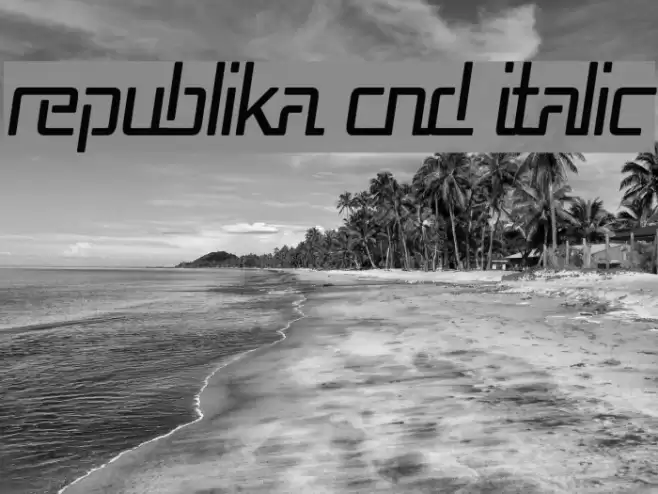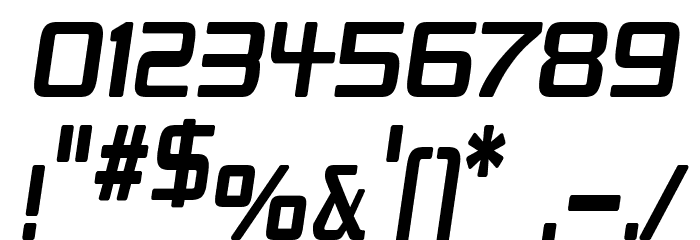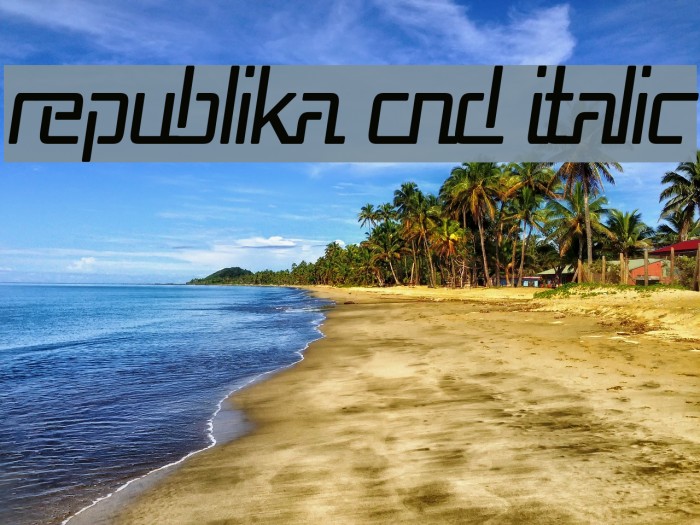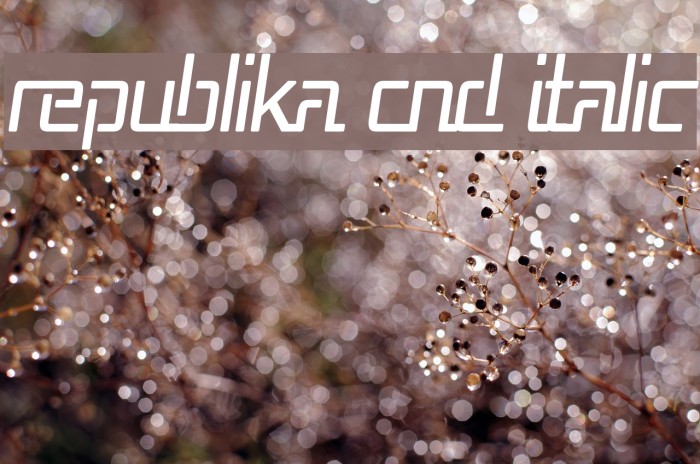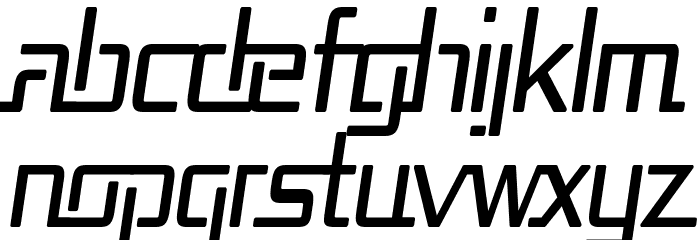
Republika Cnd Italic Font
Republika Cnd Italic Description
This font features a sleek, modern design with a condensed and italicized style. The characters are uniformly structured with a geometric influence, giving them a futuristic and technical appearance. The strokes are consistent in thickness, providing a clean and streamlined look. The spacing between characters is tight, enhancing its compact and efficient aesthetic. This font is well-suited for projects that require a contemporary and dynamic feel, such as technology branding, digital interfaces, and modern advertising.
A sleek, modern, condensed italic font with a futuristic design from Sci-fi fonts.
- Proposed Projects: Ideal for technology branding, digital interfaces, and modern advertising.
- Character Spacing: Tight